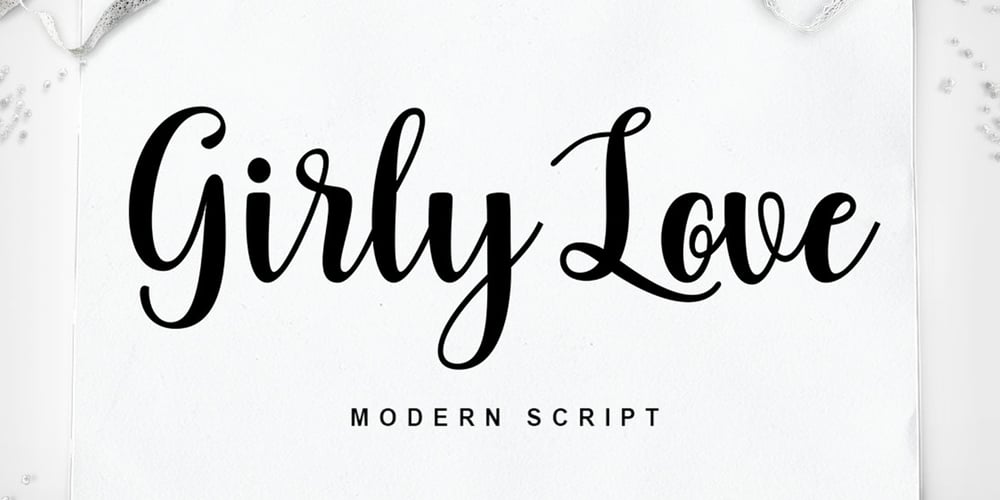
Girly Love
Girly Love font
Girly Love Font Family was designed by Rizki Andika and published by Letterfreshstudio. Girly Love contains 1 styles and family package options. Girly Love is modern handwritten script with dancing up and down the baseline, and comes with lovely alternates. It works perfectly for logos, fashion, stationery, letterpress, magazines, menus, books, invitations, wedding and greeting cards, packaging, labels, apparel, marketing and more. Girly Love also includes alternates, ligatures and multiple language support. If you need help or advice, please contact me by e-mail letterfreshstudio@gmail.com.